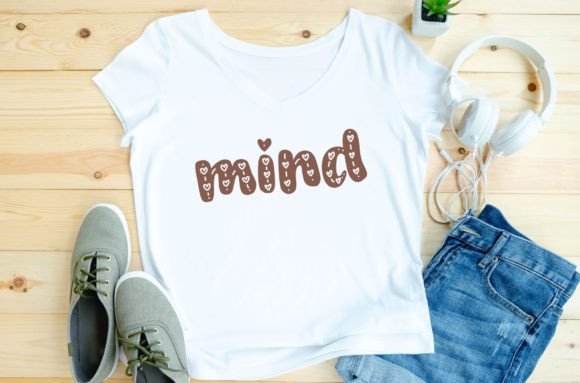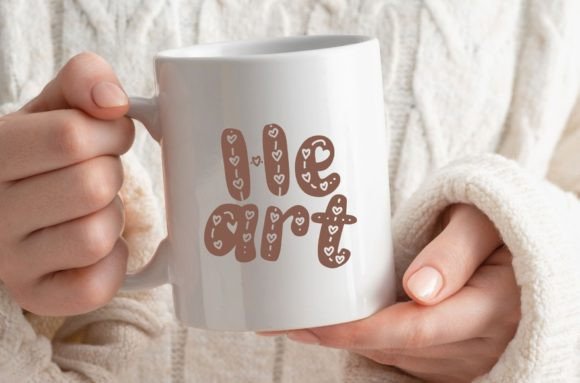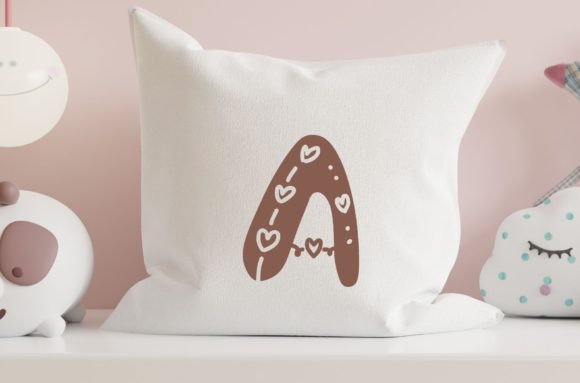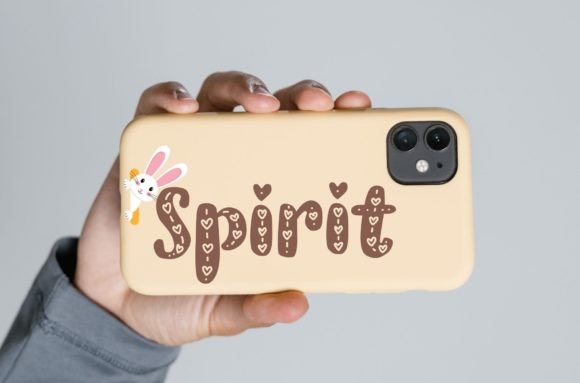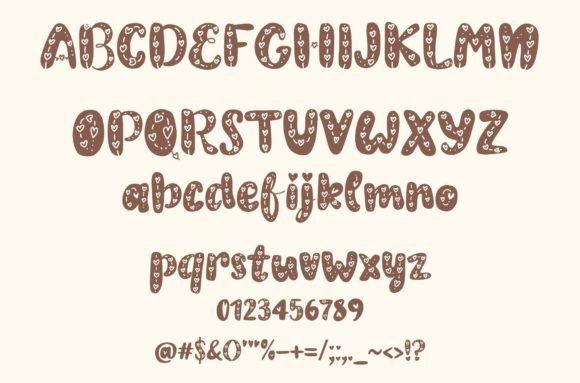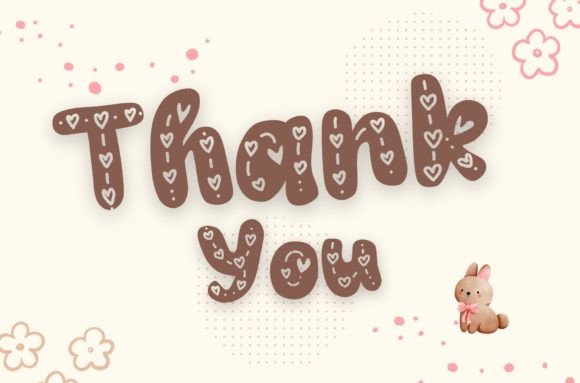
Introducing Be Love Font: The Perfect Handwritten Font for Your Creative Projects
Are you a designer, crafter, or DIY enthusiast looking for a beautiful and versatile handwritten font to elevate your creative projects? Look no further than Be Love Font! This stunning font is perfect for a wide range of applications, from logos and branding to wedding invitations, business cards, and more.
What Makes Be Love Font So Special?
Be Love Font is a carefully crafted handwritten font that exudes warmth, personality, and style. Its unique and elegant design makes it perfect for adding a personal touch to your creative projects. Whether you’re designing for a client or working on a personal project, Be Love Font is sure to make your designs stand out.
Endless Possibilities with Be Love Font
Be Love Font is incredibly versatile and can be used for a wide range of applications, including:
- Logos and branding: Create a unique and memorable brand identity with Be Love Font.
- Wedding invitations: Add a touch of romance and elegance to your wedding stationery.
- Business cards: Make a lasting impression with beautifully designed business cards.
- Greeting cards: Create personalized and heartfelt greeting cards for any occasion.
- Posters and magazines: Add a pop of personality to your print materials.
- Social media: Elevate your social media graphics and make them more engaging.
- Planner prints: Add a touch of whimsy and fun to your planner prints.
- Websites: Use Be Love Font to create a unique and memorable website design.
Perfect for Children’s Designs and More
Be Love Font is especially useful for children’s designs, making it perfect for:
- T-shirts and kids’ apparel: Create fun and playful designs that kids will love.
- Mugs and water bottles: Add a personal touch to your ceramic and drinkware designs.
- Posters and flyers: Create eye-catching and engaging posters and flyers for kids’ events.
Why Choose Be Love Font?
So why choose Be Love Font over other fonts? Here are just a few reasons:
- Unique and elegant design: Be Love Font has a distinctive and stylish design that will make your projects stand out.
- Handwritten with love: This font is carefully crafted with love and attention to detail, giving it a personal and human touch.
- Highly versatile: Be Love Font can be used for a wide range of applications, from print to digital.
Get Creative with Be Love Font
| Font Name | Be Love Font |
| Author | PeamCreations |
Be Love Font is a beautiful and versatile handwritten font that’s perfect for designers, crafters, and DIY enthusiasts. With its unique and elegant design, endless possibilities, and ease of use, it’s the perfect addition to your creative projects. So why wait? Download Be Love Font today and start creating stunning designs that will leave a lasting impression!